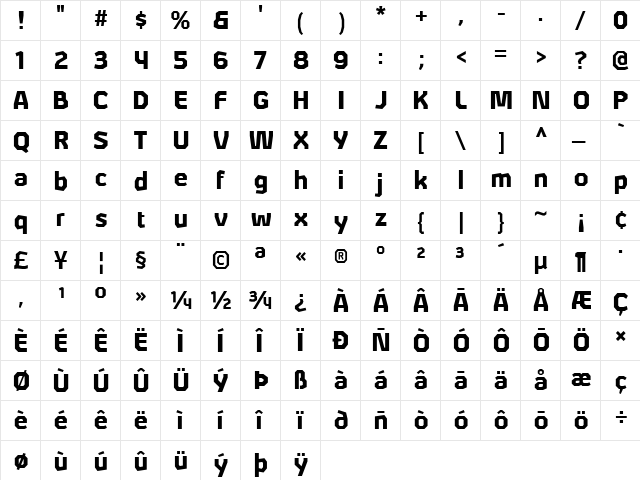
Alphii Black Regular Font Preview
Alphii Black Regular
Design Context for Alphii Black Typeface
Alphii Black takes a measured approach to typography — its balanced proportions and neutral character make it a reliable workhorse for both digital and print work.